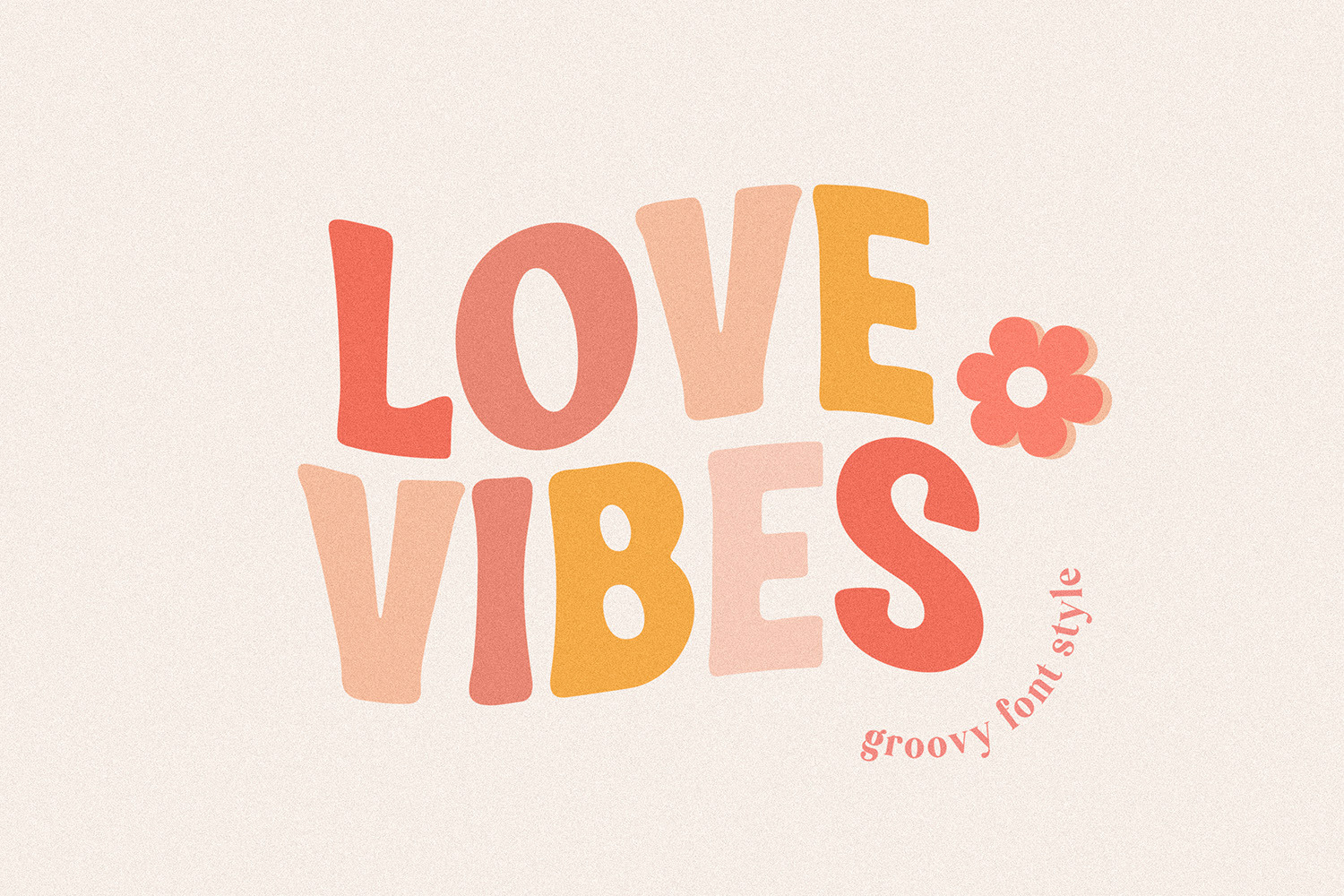
Love Vibes Groovy Font
Love Vibes a cute retro handwritten font. Perfect to create stickers, quotes, t-shirt designs, mug designs, baby svg onesie projects, cricut projects, sublimation designs and svg files.
Love Vibes Font